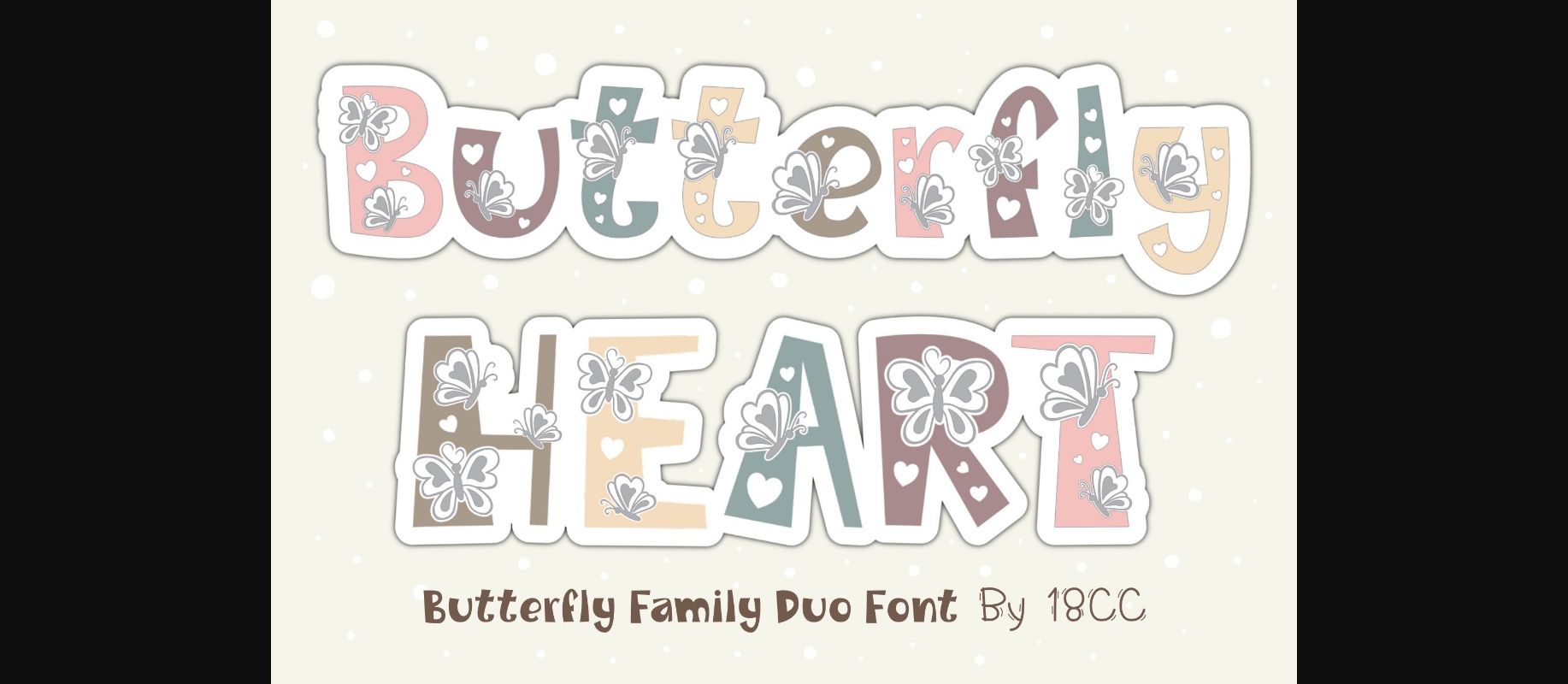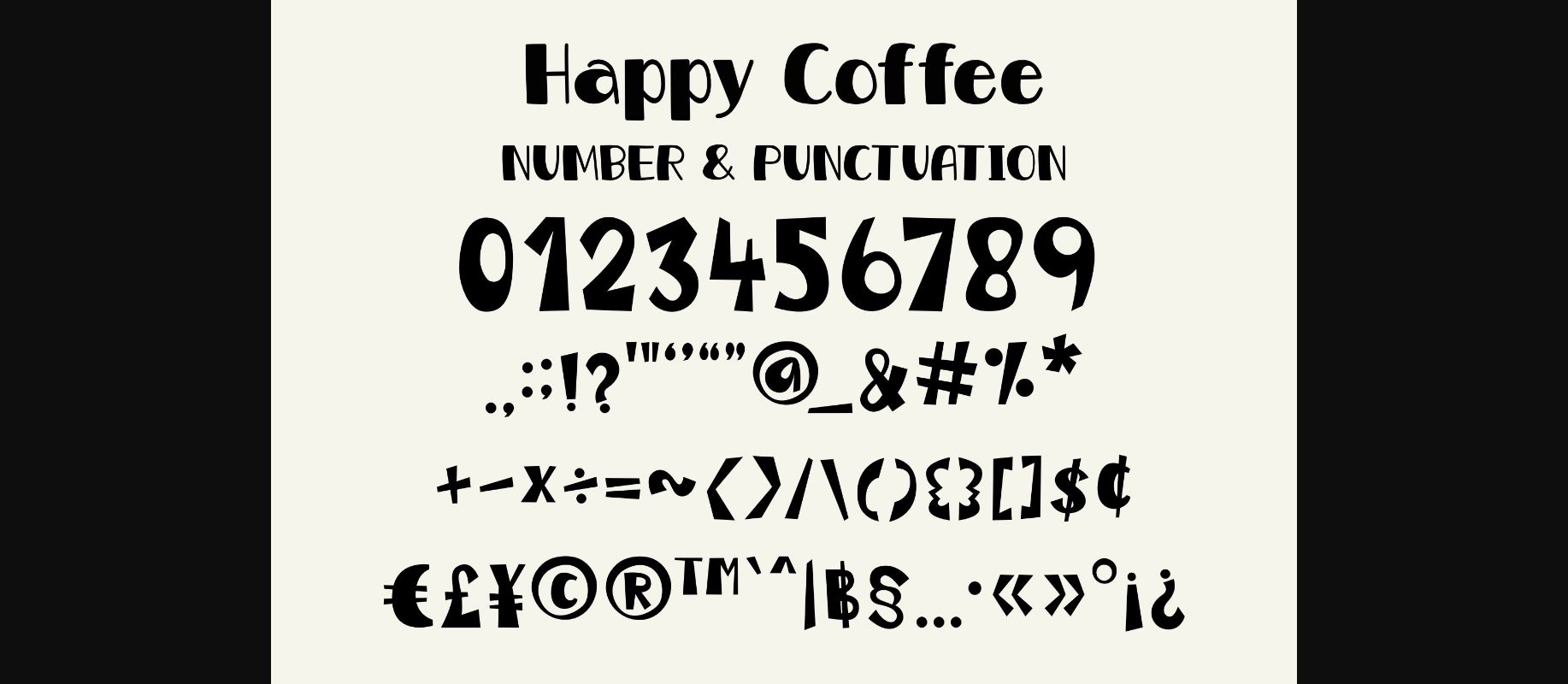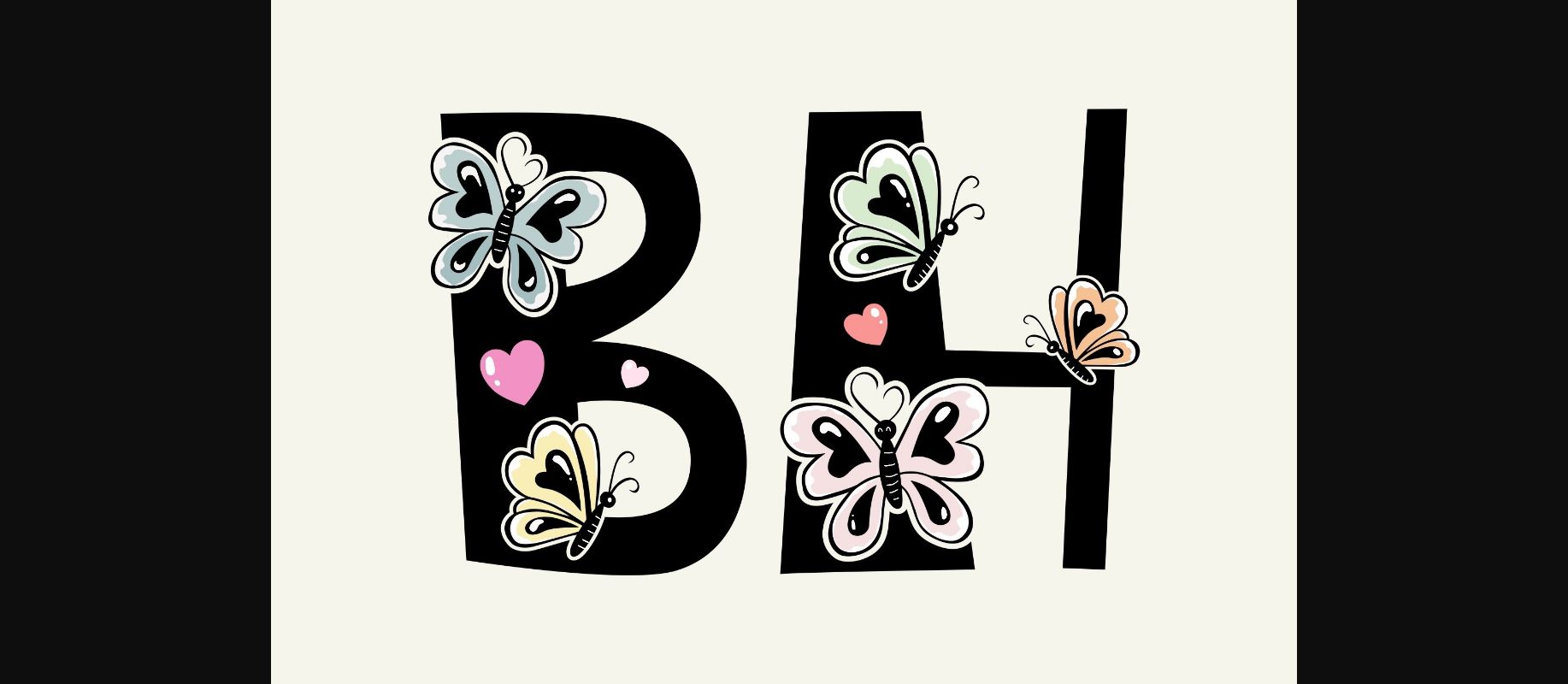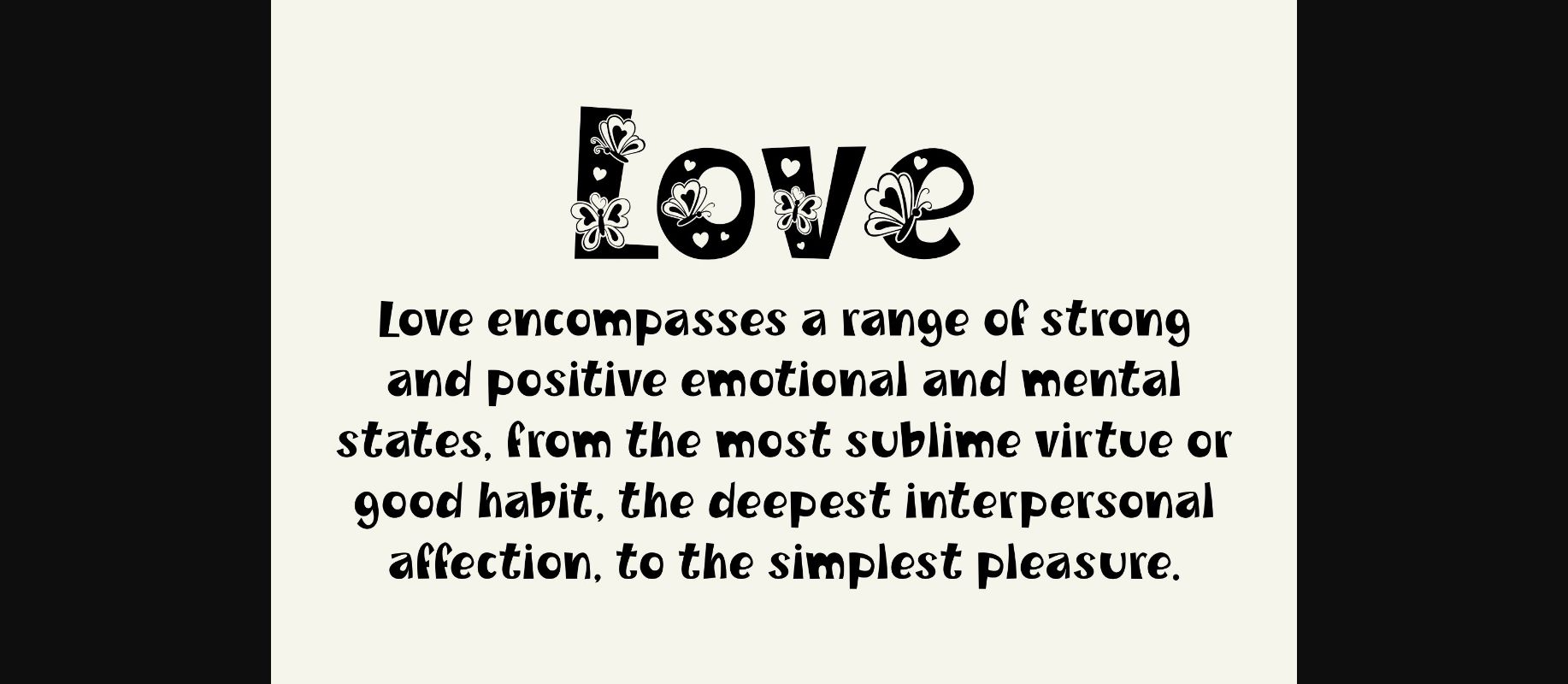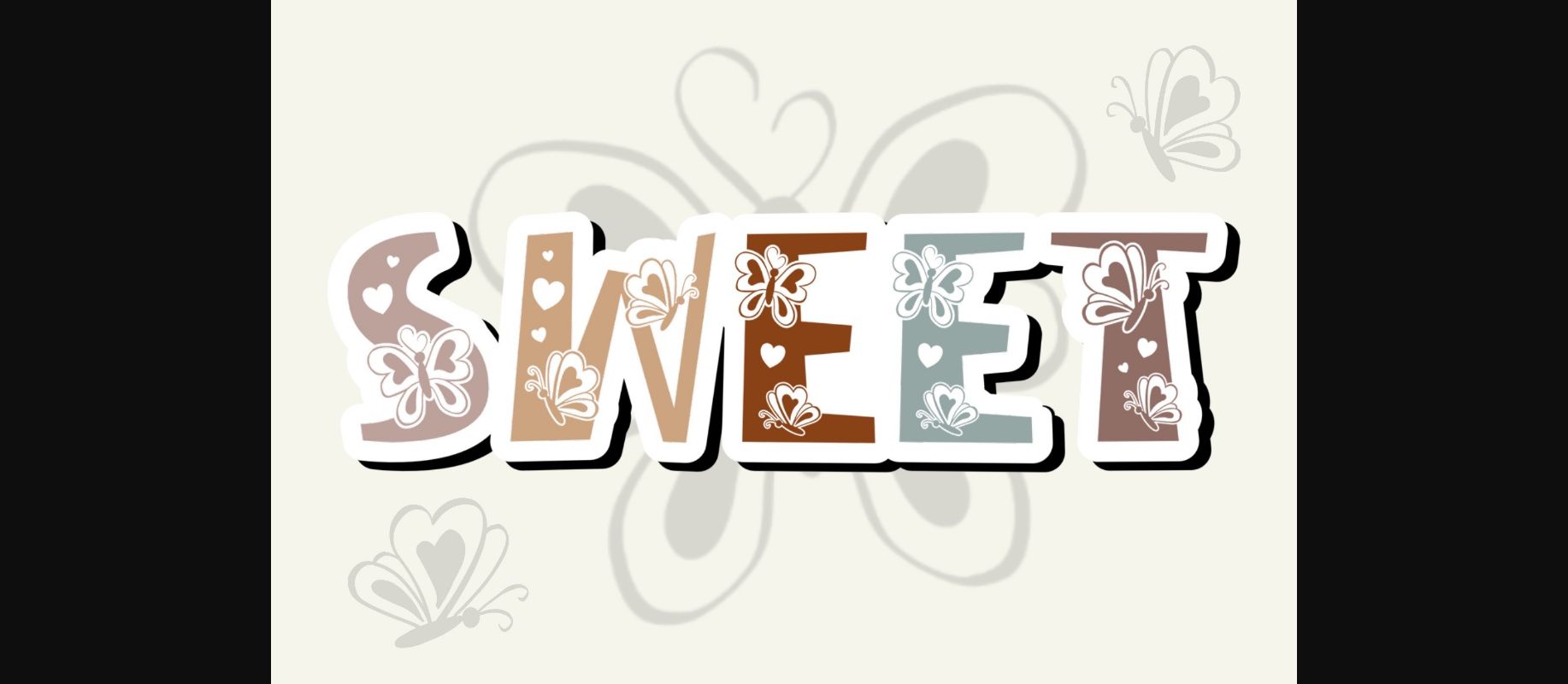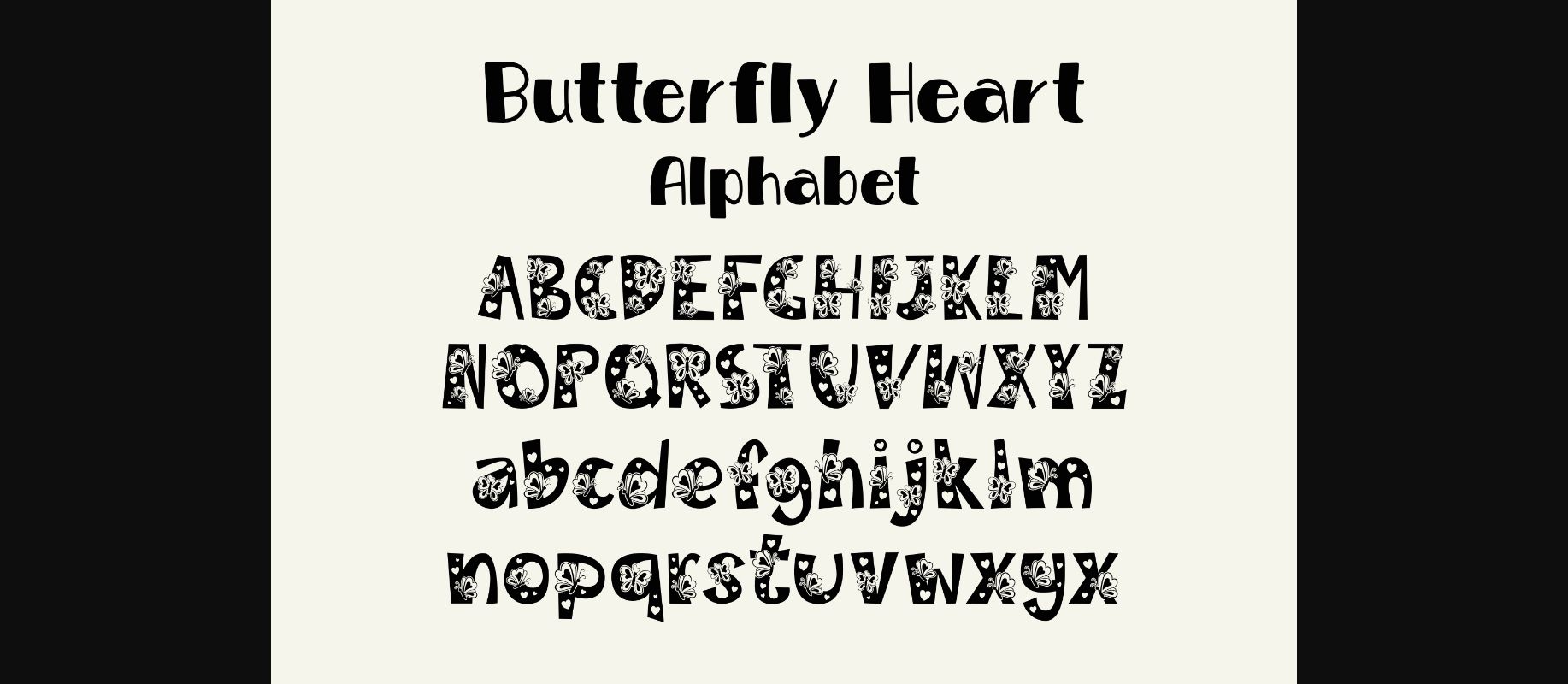
About Butterfly Heart Font
Butterfly Heart is a cute family duo fonts ( Decorative and Display ). Decorated with lovely hearts and butterflies element. Use it to create gorgeous stationary art, eye-catching social media posts, and cute greeting cards.